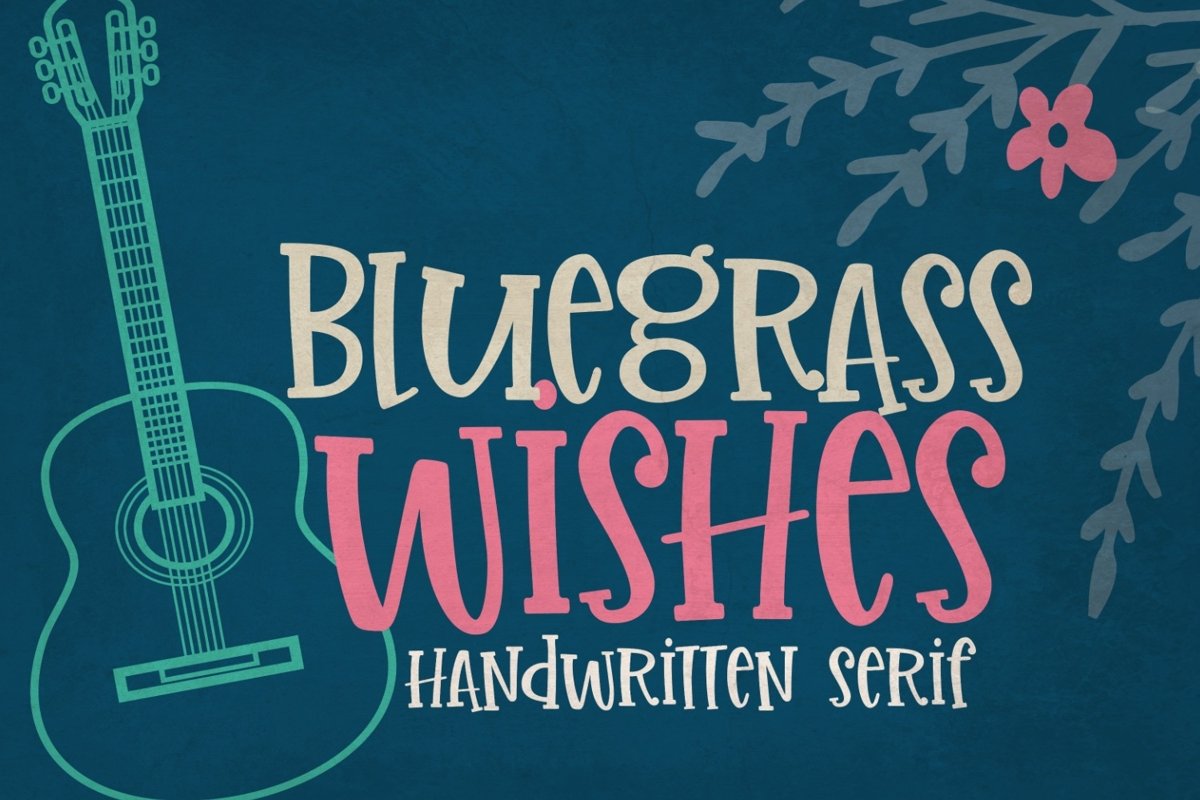
Bluegrass Wishes Handwritten Font for Crafters
Introducing Bluegrass Wishes Handwritten Font! This handwritten mixed case serif font is perfect for many design projects! I've made this font for Cricut and Silhouette crafters, making it as smooth as possible, reducing the amount of nodes in each glyph to ensure optimal cutting with Cricut, Silhouette or other craft machines.